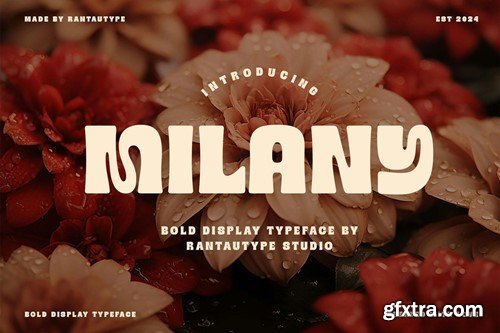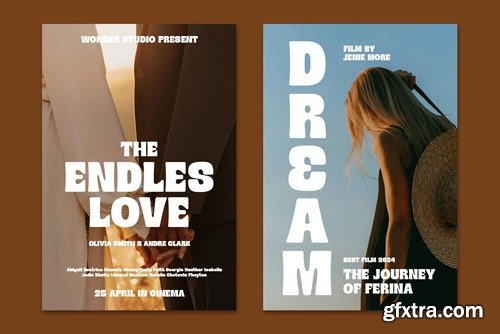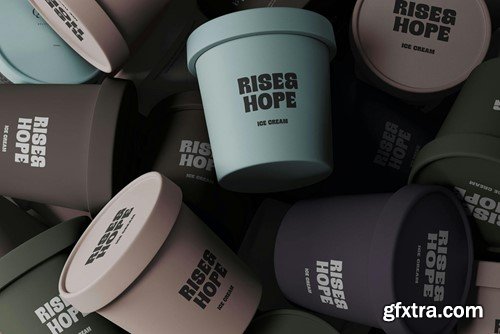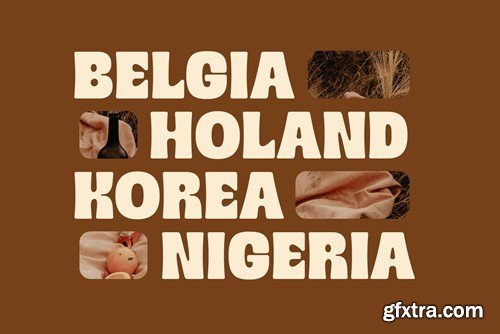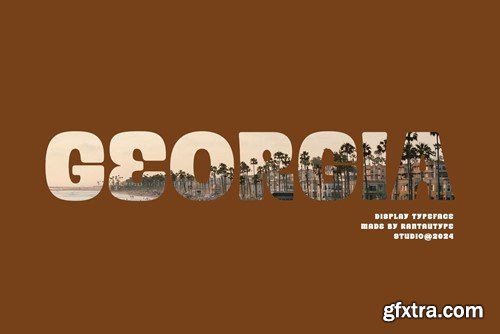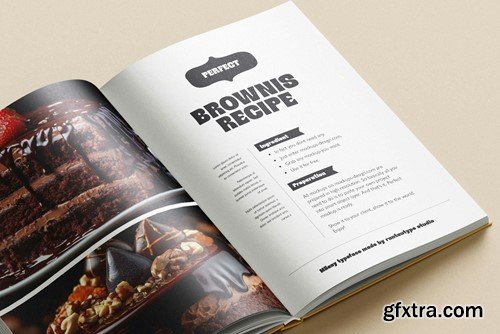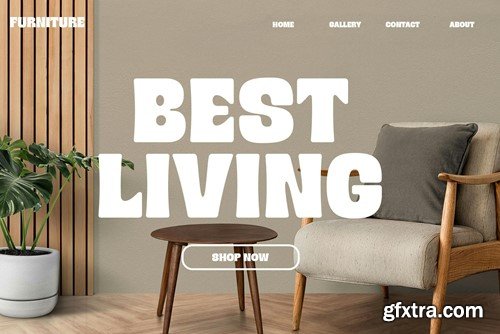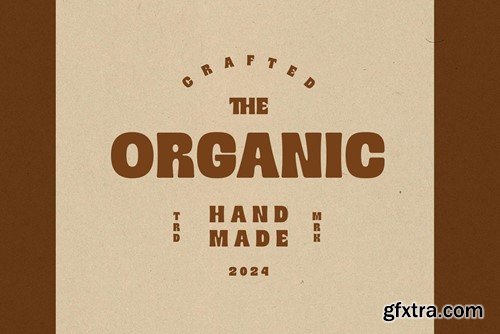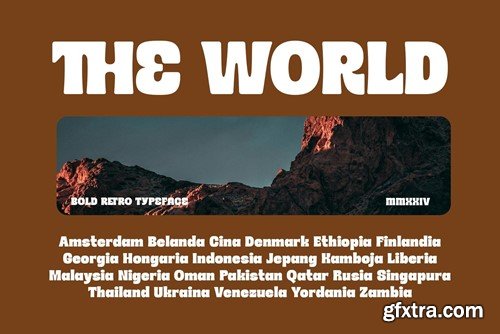
米兰尼亚 bold 字体样式 UKEFM5F
Milany is display typeface with retro vibes. Milany bring a sophisticated, bold and flow curve to make creative design project. Milany is a perfectly choice for any creative endeavor, chic, lifestyle design such as logos, advertisements, watermark on photography, stationery, branding project, display and magazine, invitation, corporate brand, product design, label, business project and many other project with retro touch. What you have: Fonts include Multilingual Character for: Afrikaans, Albanian, Asu, Basque, Bemba, Bena, Breton, Chiga, Cornish, Dutch, English, Estonian, Filipino, Finnish, Friulian, Galician, Gusii, Indonesian, Irish, Italian, Kabuverdianu, Kalenjin, Kinyarwanda, Luo, Luxembourgish, Luyia, Machame, Makhuwa-Meetto, Makonde, Malagasy, Manx, Morisyen, North, Ndebele, Nyankole, Oromo, Portuguese, Quechua, Romansh, Rombo, Rundi, Rwa, Samburu, Sango, Sangu, Scottish, Gaelic, Sena, Shambala, Shona, Soga, Somali, Spanish, Swahili, Swedish, Swiss, German. Thank you for your purchase! Hope you enjoy with our font!